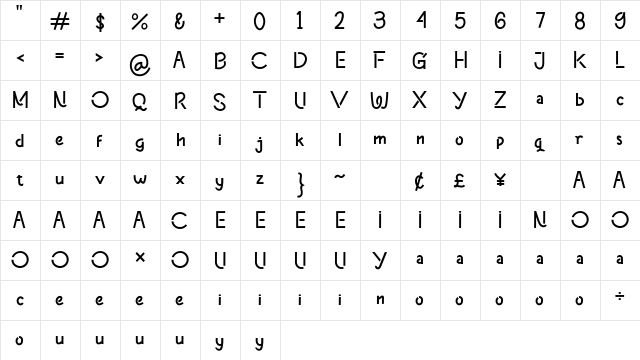
PODORADONGdemo Regular
| Foundry | ROZI |
| Designer | ROZI |
Design Context for PODORADONGdemo Typeface
PODORADONGdemo takes a measured approach to typography — its balanced proportions and neutral character make it a reliable workhorse for both digital and print work.